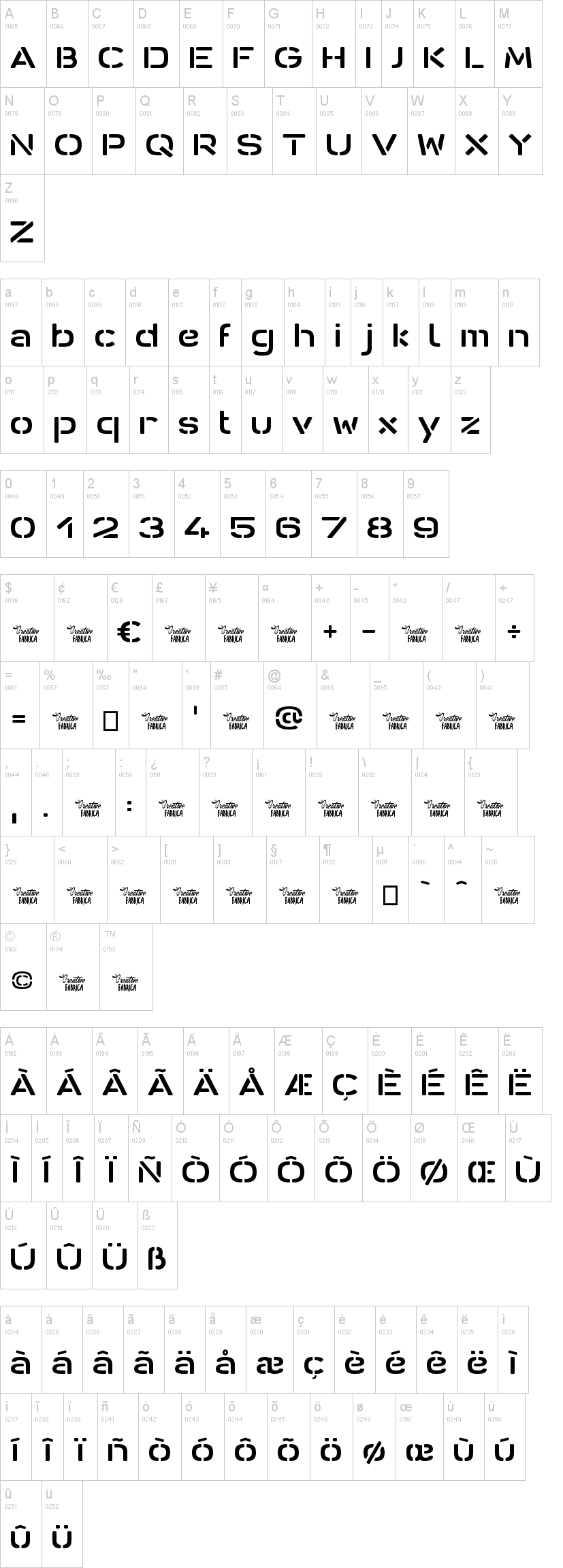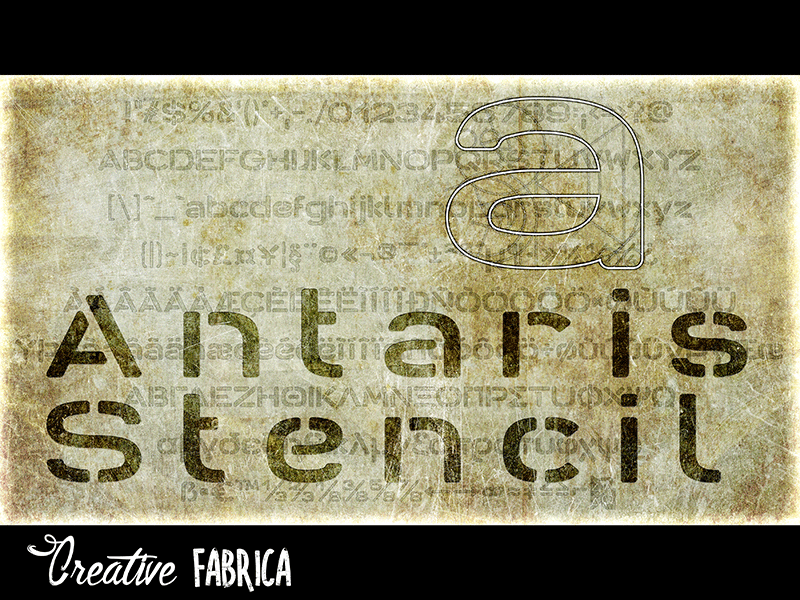
Note of the authorAntaris Stencil is like Antaris a lightly rounded, modern and well constructed sans serif font, good readable in smaller sizes and usable for displays as well.
Stencil gives a strong font like Antaris a touch of lost or secret significance which can be found on Stoneage walls as well as on military concrete walls or wooden cargo boxes.